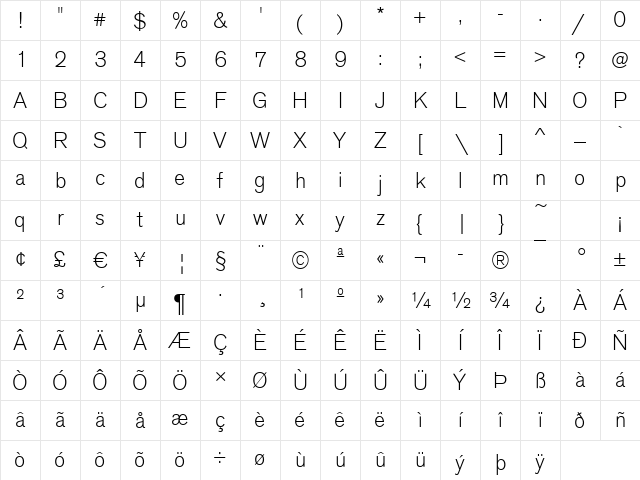
Ancona-Light is a composed and adaptable typeface that performs quietly and consistently across a wide range of design contexts. Its slender proportions lend an understated elegance to any composition.